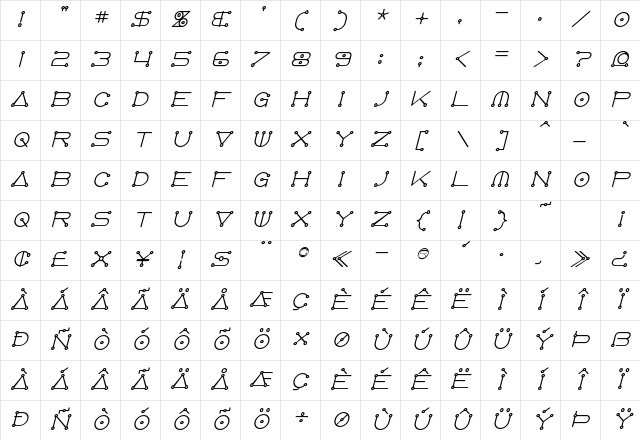
AngloCelestial Bold Italic Free Font
AngloCelestial Bold Italic
Foundry: Neale Davidson
Designer: Neale Davidson
Design Context for AngloCelestial
AngloCelestial is a composed and adaptable typeface that performs quietly and consistently across a wide range of design contexts. The slanted form adds forward momentum and visual energy. Its bold stroke weight gives it real presence on the page.
Pro Tip: Use AngloCelestial for emphasis, pull quotes, and subheadings where its slanted energy can add rhythm to the layout.